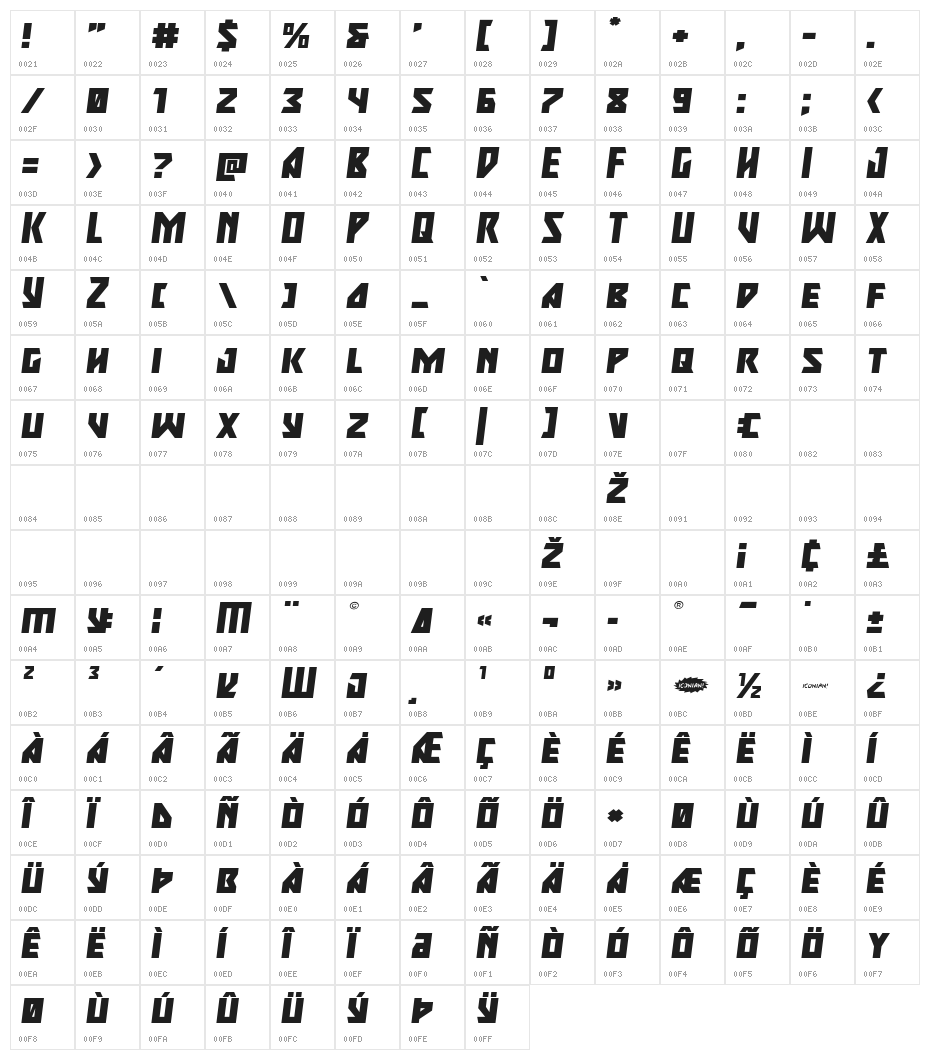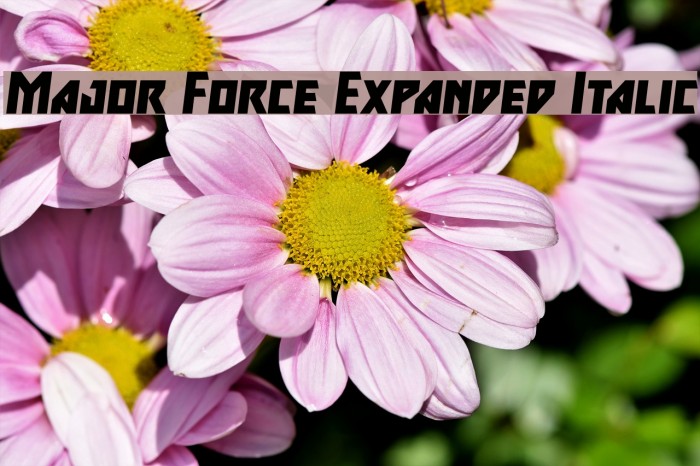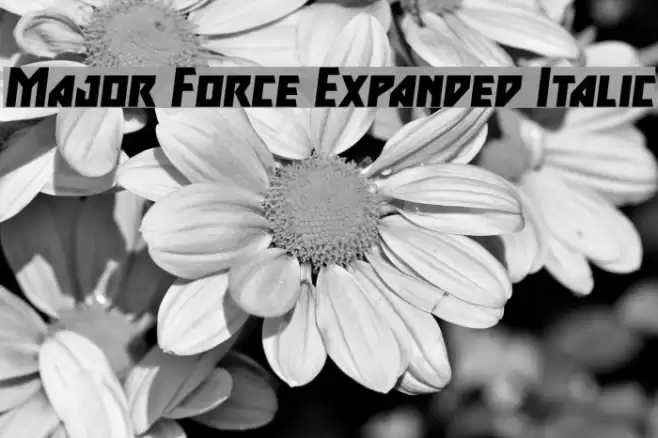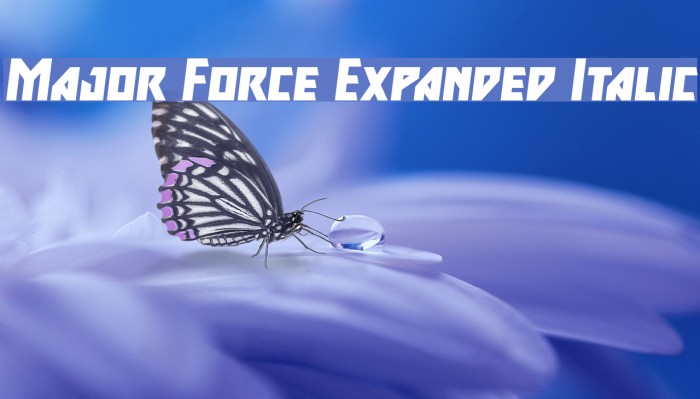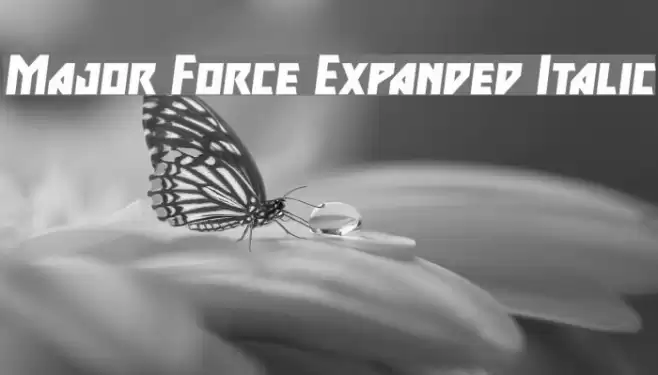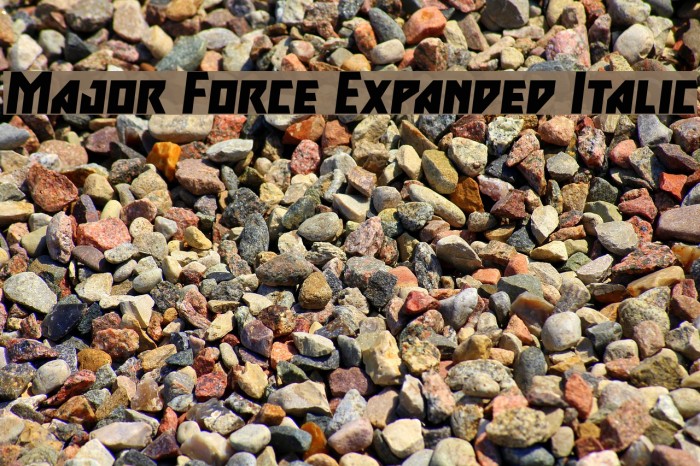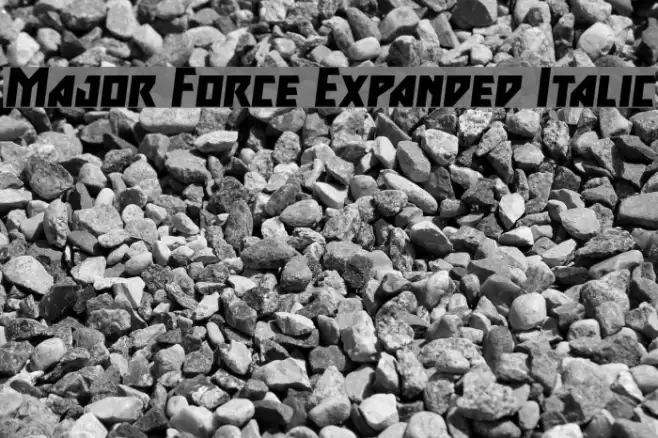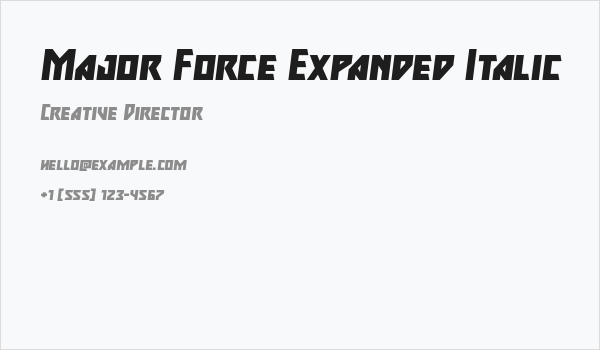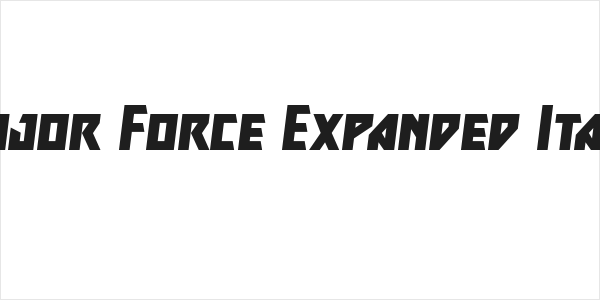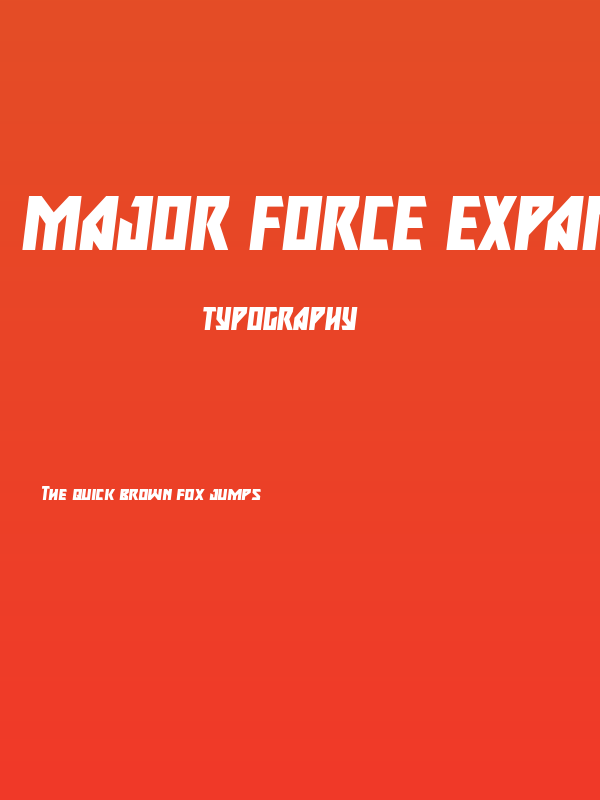
Major Force Expanded Italic Font
Major Force Expanded Italic Description
This font features a bold and dynamic style with an expanded and italicized form. The characters are sharply angled, giving a sense of movement and energy. The uppercase and lowercase letters maintain a consistent width, creating a uniform appearance across the text. The numerals and special characters follow the same bold and angular design, ensuring cohesion throughout. The font's strong geometric shapes and slanted orientation make it stand out, ideal for attention-grabbing designs.